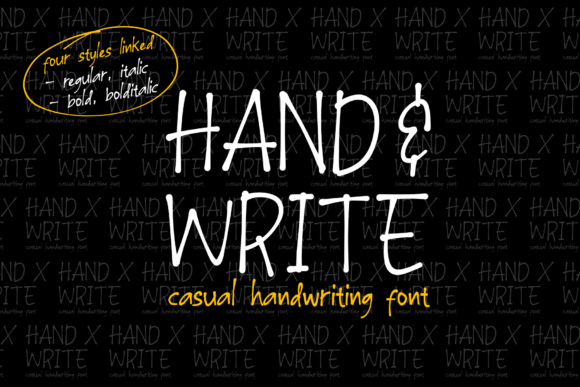
Introducing Hand and Write Font: The Perfect Addition to Your Design Projects
Are you tired of using the same old fonts in your designs? Do you want to add a touch of personality and whimsy to your projects? Look no further than Hand and Write Font, a fun and casual handwritten font that’s sure to brighten up any design.
What is Hand and Write Font?
Hand and Write Font is a unique and quirky font that’s perfect for designers and crafters who want to add a personal touch to their projects. This handwritten font is designed to look like it’s been written by hand, with a playful and informal feel that’s perfect for a wide range of design applications.
Characteristics of Hand and Write Font
So, what makes Hand and Write Font so special? Here are just a few of its key characteristics:
- Whimsical and quirky: Hand and Write Font has a playful and informal feel that’s perfect for designers who want to add a touch of personality to their projects.
- Handwritten look: This font is designed to look like it’s been written by hand, with a natural and organic feel that’s perfect for a wide range of design applications.
- Easy to read: Despite its playful feel, Hand and Write Font is easy to read and understand, making it perfect for use in body text and other applications where readability is key.
- Versatile: Hand and Write Font is a versatile font that can be used in a wide range of design applications, from digital projects to print materials.
How to Use Hand and Write Font in Your Designs
So, how can you use Hand and Write Font in your designs? Here are a few ideas to get you started:
- Digital projects: Use Hand and Write Font in your digital projects, such as social media graphics, blog posts, and email newsletters.
- Print materials: Add Hand and Write Font to your print materials, such as brochures, flyers, and business cards.
- Crafting projects: Use Hand and Write Font in your crafting projects, such as scrapbooking, card making, and journaling.
- Branding: Use Hand and Write Font as part of your branding identity, such as in your logo, website, and marketing materials.
Why Choose Hand and Write Font?
So, why should you choose Hand and Write Font for your design projects? Here are just a few reasons:
- Unique and eye-catching: Hand and Write Font is a unique and eye-catching font that’s sure to grab attention.
- High-quality: Hand and Write Font is a high-quality font that’s designed to produce crisp and clear results.
Tips for Getting the Most Out of Hand and Write Font
Here are a few tips for getting the most out of Hand and Write Font:
- Use it sparingly: While Hand and Write Font is a beautiful font, it can be overwhelming if used too much. Use it sparingly to add emphasis and interest to your designs.
- Experiment with different sizes: Experiment with different sizes and styles to find the perfect look for your design.
- Pair it with other fonts: Pair Hand and Write Font with other fonts to create a unique and interesting look.
- Have fun: Most importantly, have fun with Hand and Write Font! Experiment with different designs and ideas to see what works best for you.
| Font Name | Hand and Write Font |
| Author | JavaPep |
In conclusion, Hand and Write Font is a fun and casual handwritten font that’s perfect for designers and crafters who want to add a touch of personality to their projects. With its whimsical and quirky feel, easy readability, and versatility, this font is sure to brighten up any design. So why not give it a try and see the difference it can make?